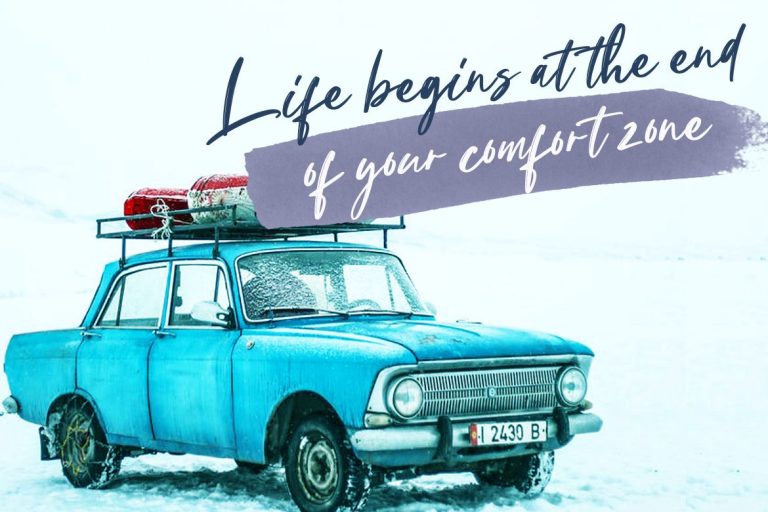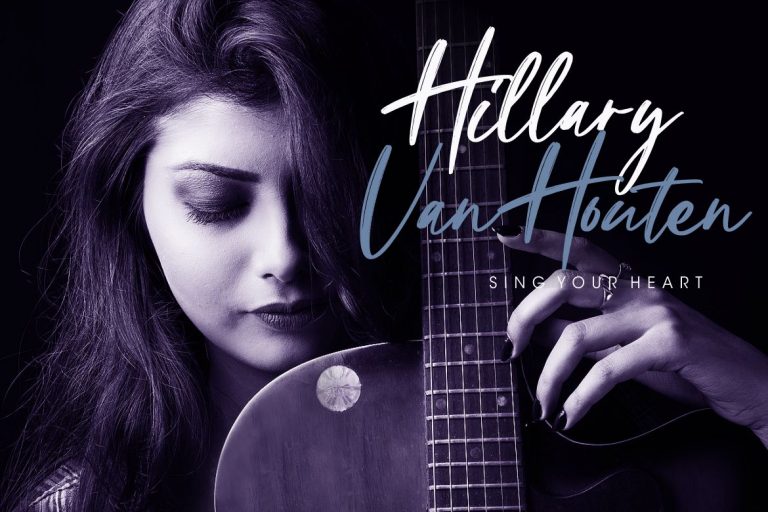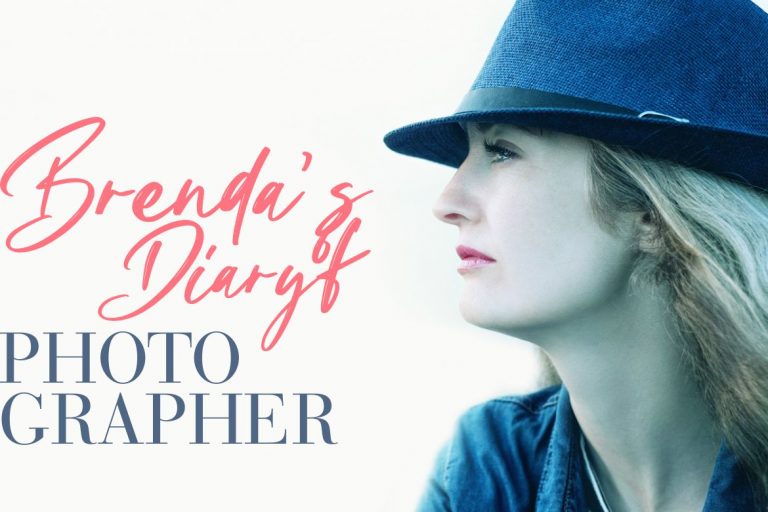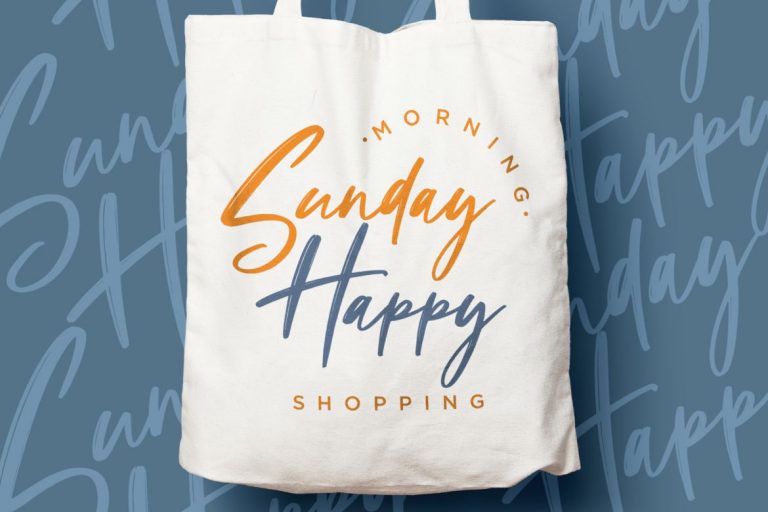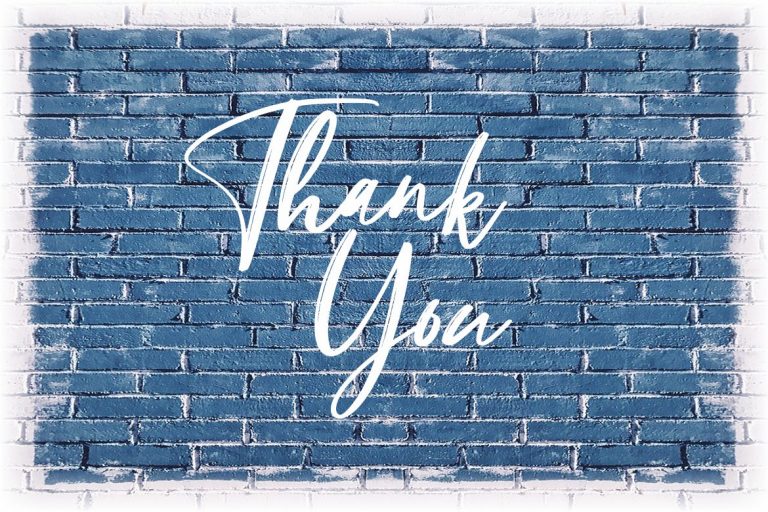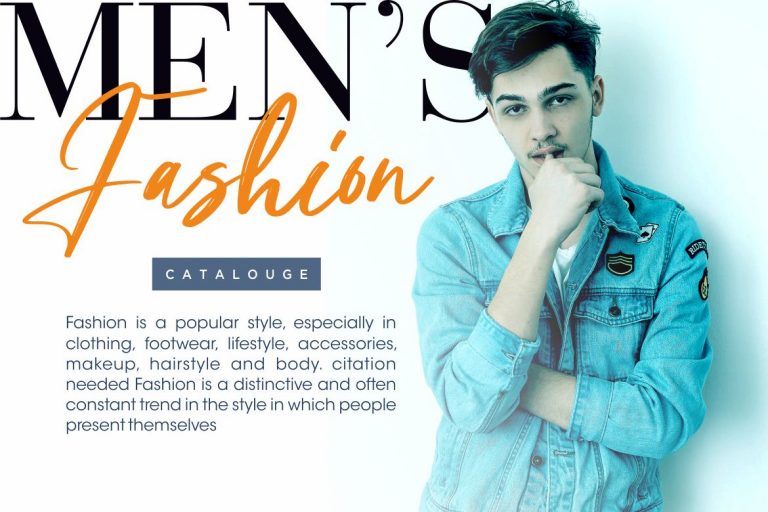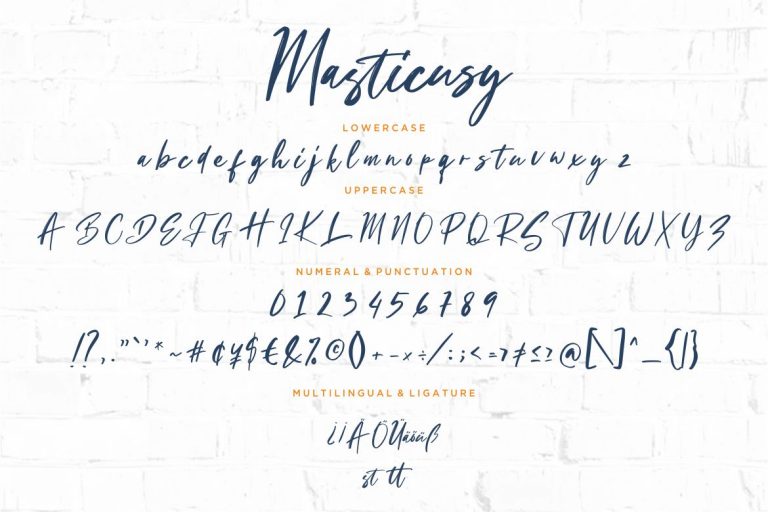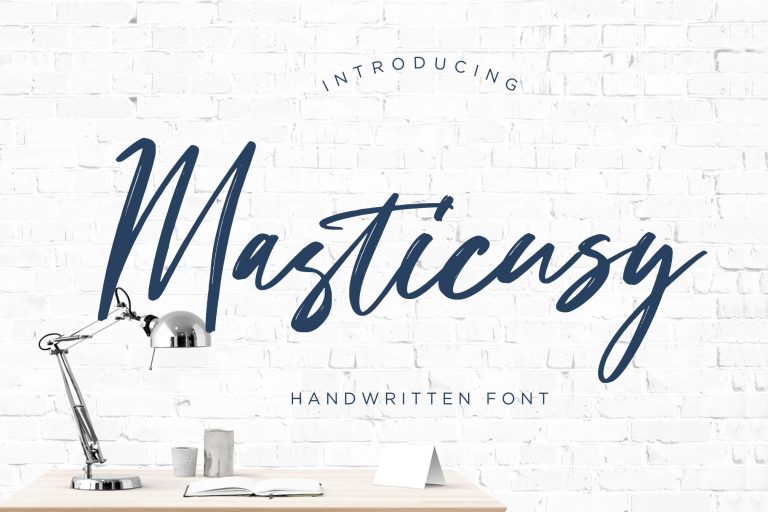
Masticusy Handwritten is a handwritten script font with the kind of modern hand scratches.
Masticusy Handwritten is perfect for branding projects, logo, wedding designs, social media posts, advertisements, product packaging, product designs, label, photography, watermark, invitation, stationery and any projects that need handwriting taste.
• Fonts include multilingual support for; ä ö ü Ä Ö Ü ß ¿ ¡
Masticusy Handwritten